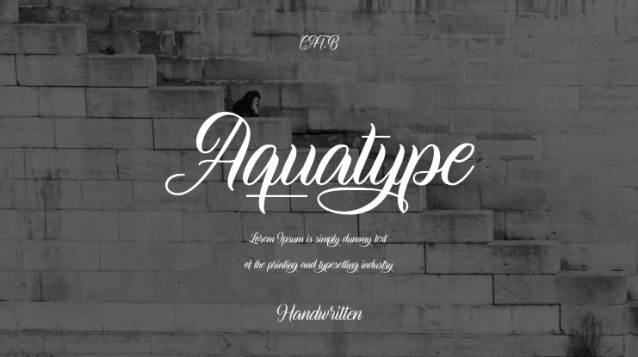
Aquatype Font
Aquatype Font is a calligraphy font that comes with exquisite changing characters, a kind of classic decorative copper script with a modern touch, designed with high details to bring out the elegance of the style.